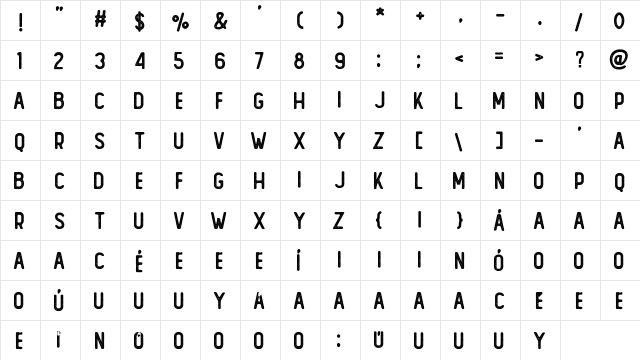
GRAHM Sans Rough Regular
Design Context for GRAHM Sans Rough Typeface
GRAHM Sans Rough embraces imperfection — its rough, textured character adds raw authenticity to designs that want to feel lived-in and unconventional.
Suited to punk-influenced zines, underground music branding, streetwear, and raw, anti-corporate design.
Pro Tip: Pair GRAHM Sans Rough with intentionally raw or lo-fi design elements. Fighting against it with overly polished surroundings will undermine its personality.